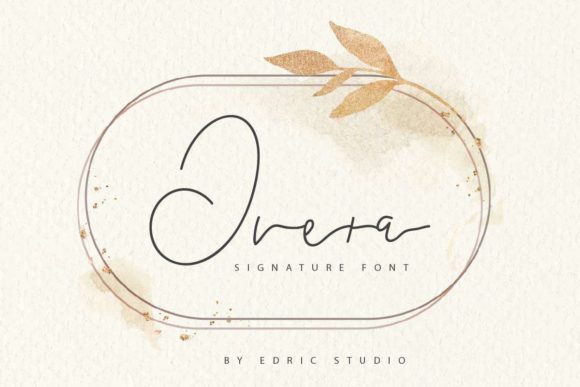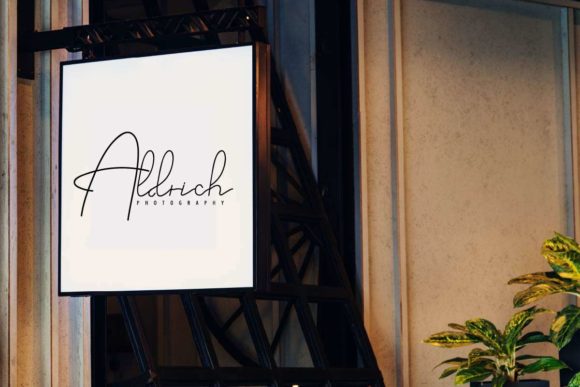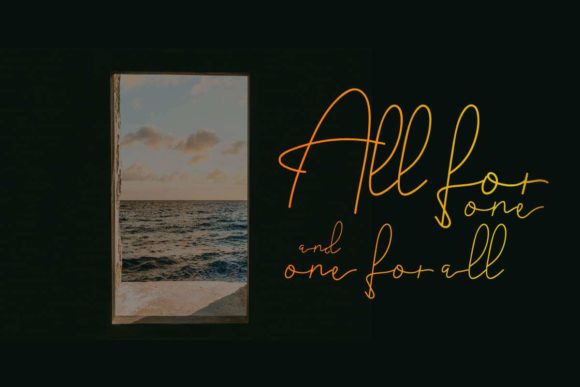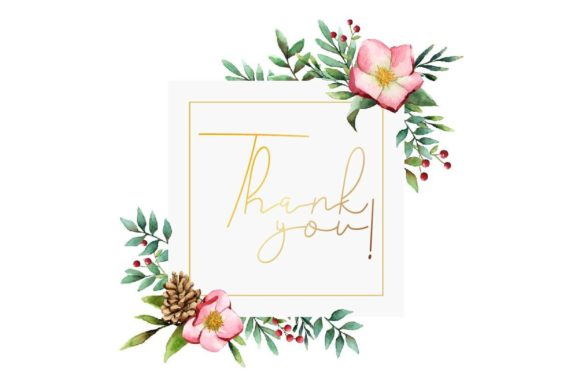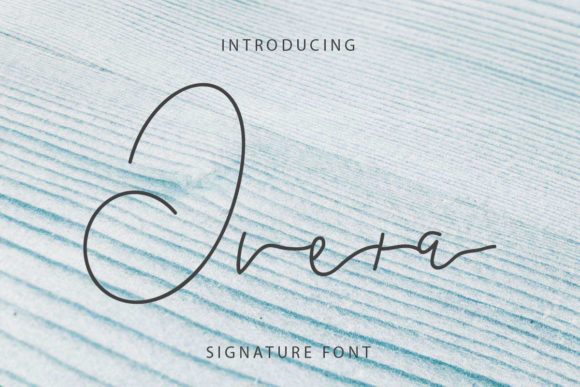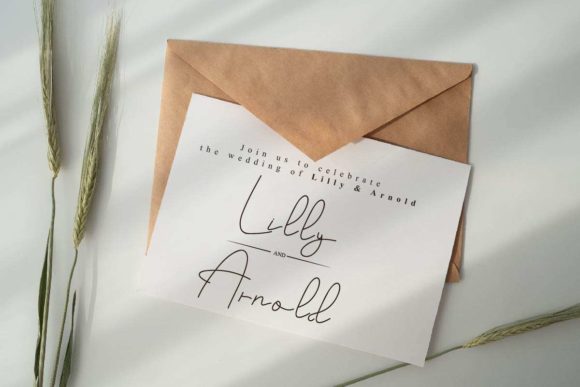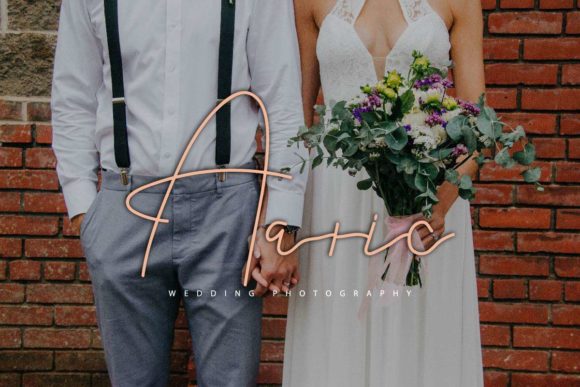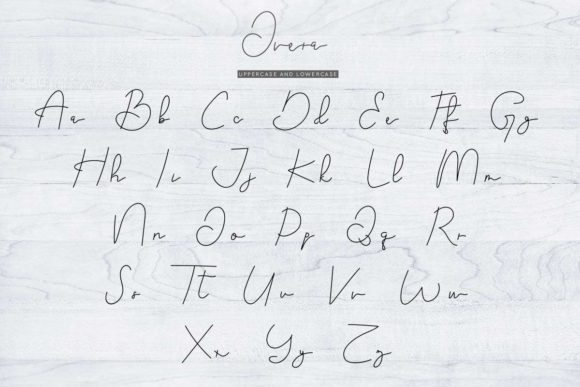
Overa Font
About Overa Font
Overa is inspired by classic typography and brings its own unique style to any design project. This fantastic script font is best suited for headlines of all sizes, as well as for blocks of text that have both maximum and minimum variations. Whether it’s for web, print, moving images or anything else – Overa will look spectacular.